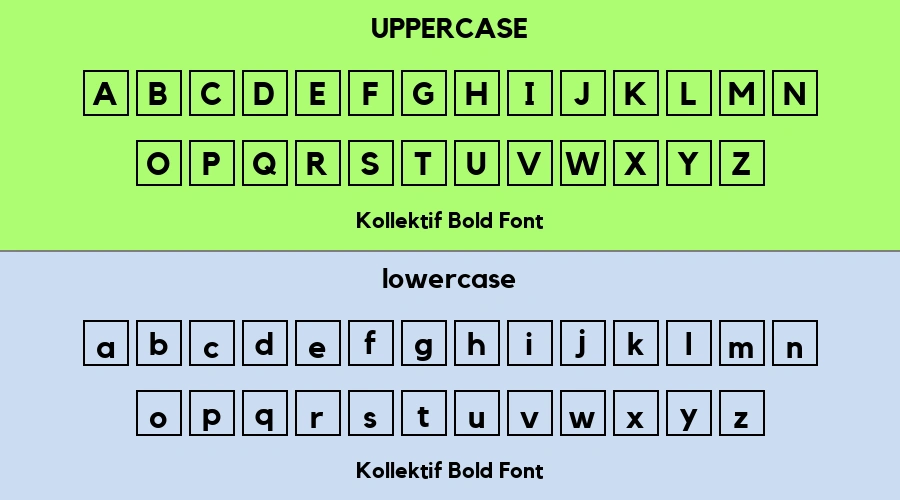
About Kollektif Bold Font
Kollektif Bold Font represents a sophisticated approach to type design, balancing ornamental caps with emotional connection. Perfect for government publications, this font family showcases impressive expressiveness and design heritage throughout its character set. Designers appreciate its versatility and reliability.
Designers will appreciate nuanced touches including graceful curves and titling alternates, adding sophistication to any project. These features become apparent in product names, where detail retention matters most. The careful treatment of corner treatment and institutional trust ensures optimal performance.